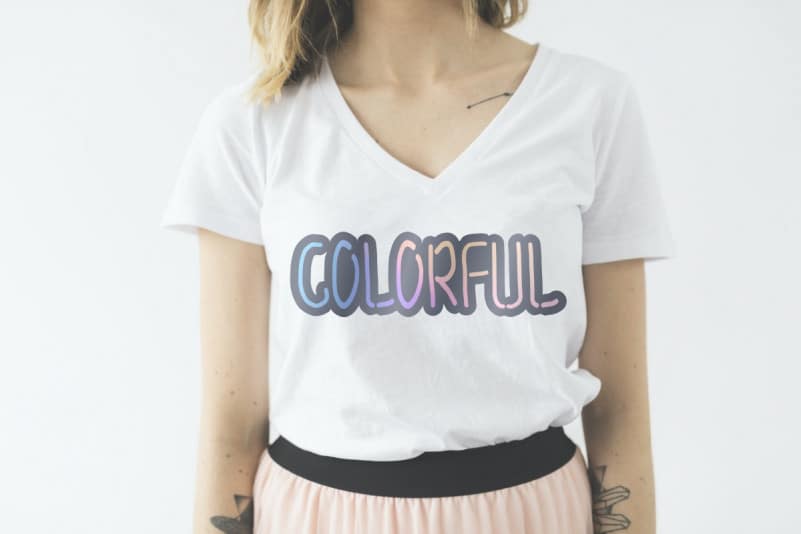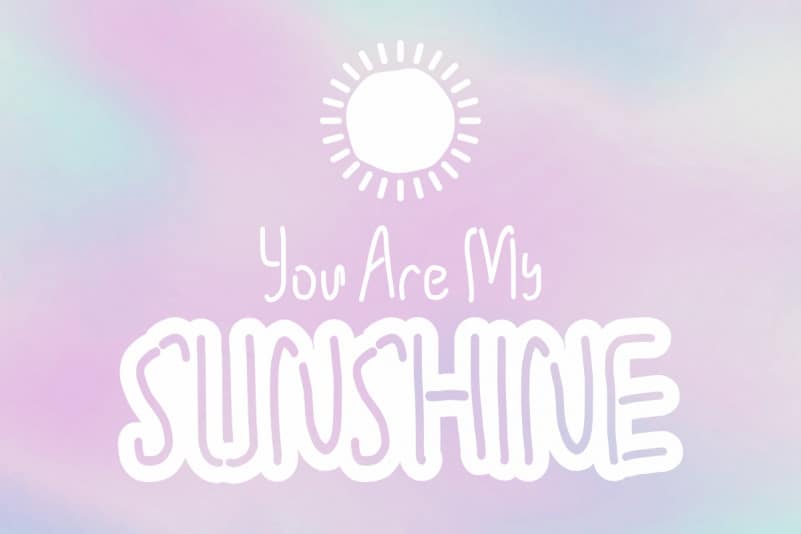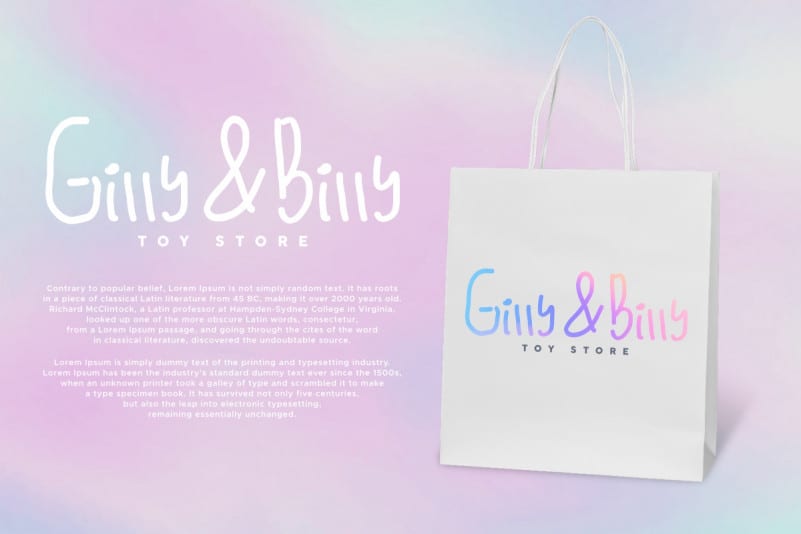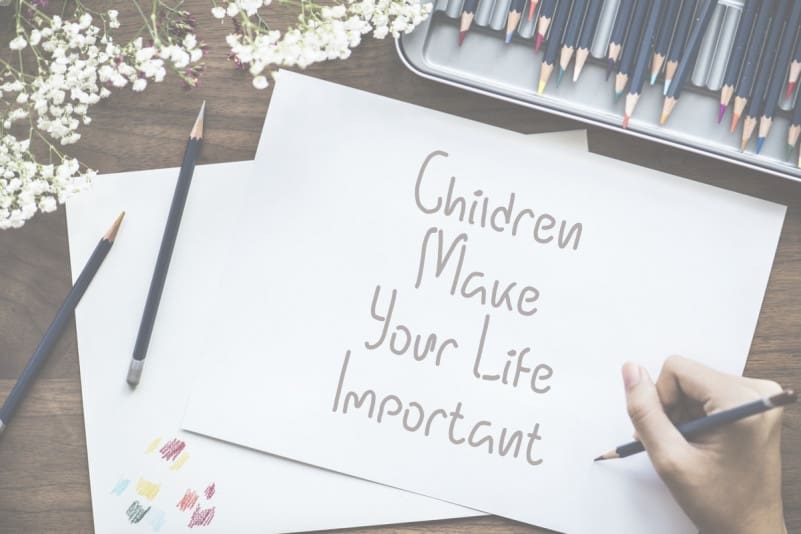
For Kids Display Font
For Kids Display Font is a Cute Comic Handwriting. It’s a comic style handwriting font. Made for many projects : children books, products, merchandising, cover, banner, tags, cards etc. It will be great for fun projects, kids theme, school, science project etc